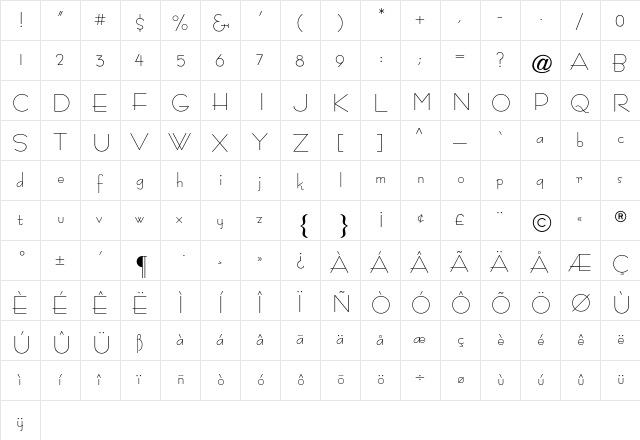
Bernhard Fashion CG Regular
| Foundry | Agfa Corporation |
Design Context for Bernhard Fashion CG Typeface
Bernhard Fashion CG takes a measured approach to typography — its balanced proportions and neutral character make it a reliable workhorse for both digital and print work.